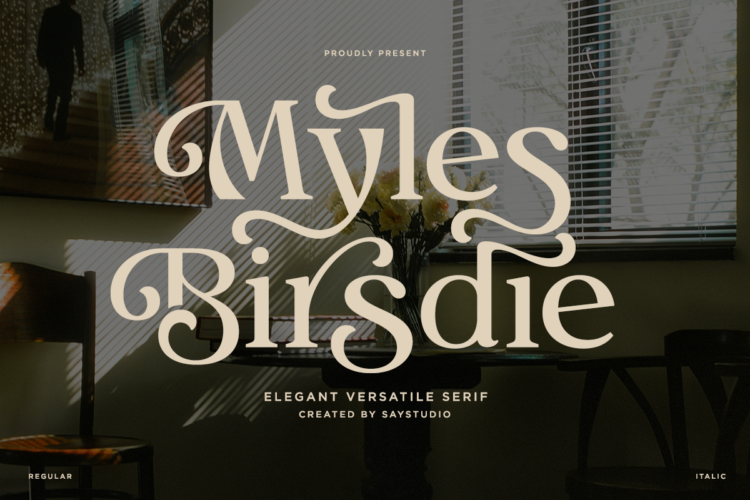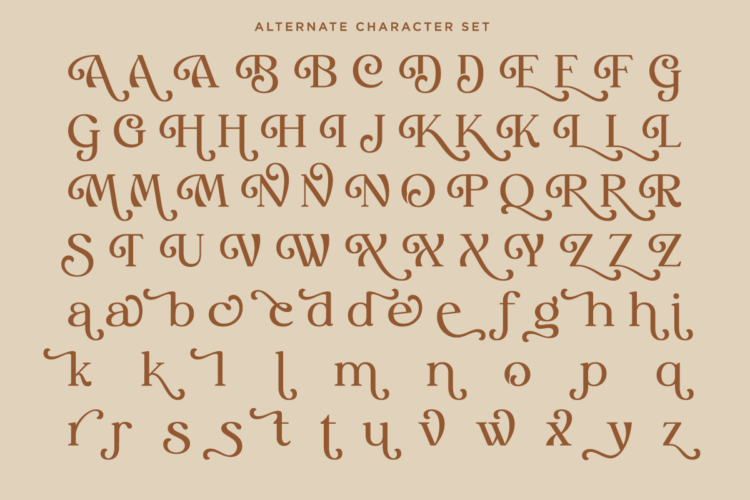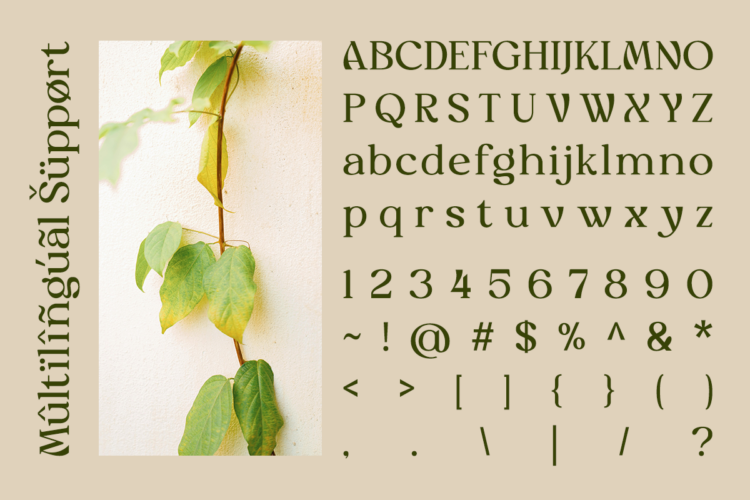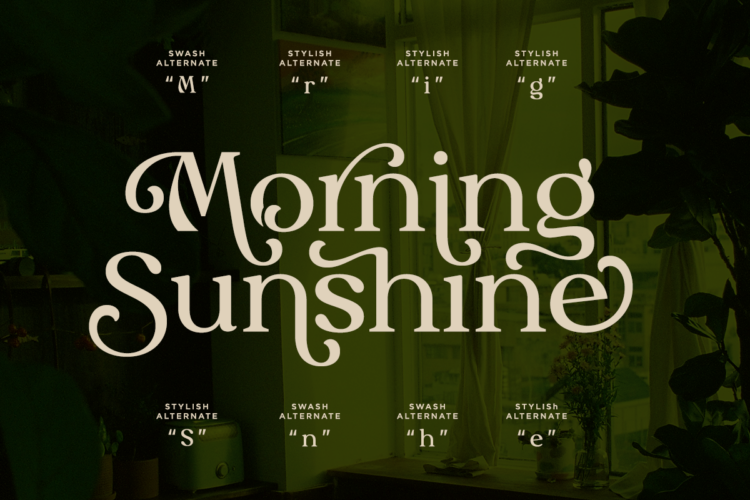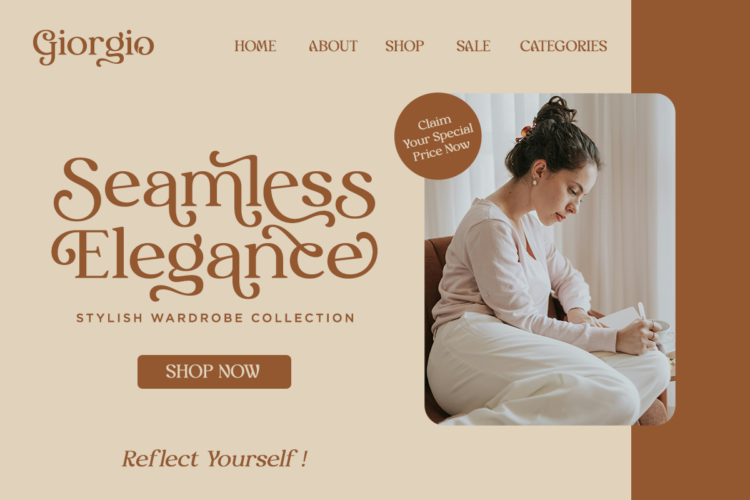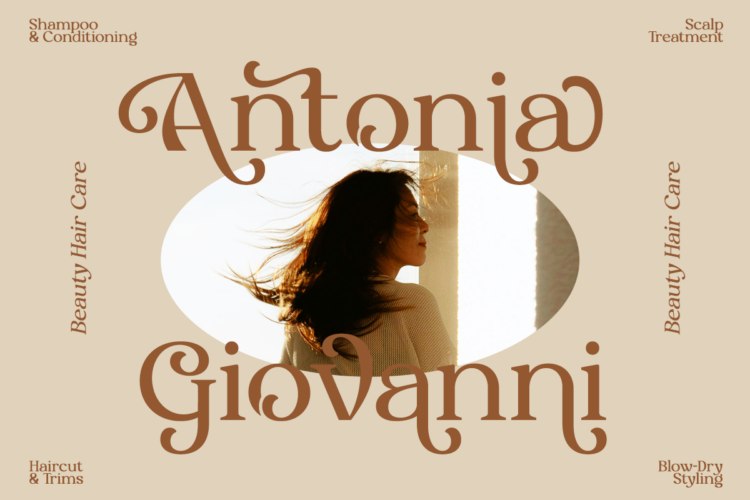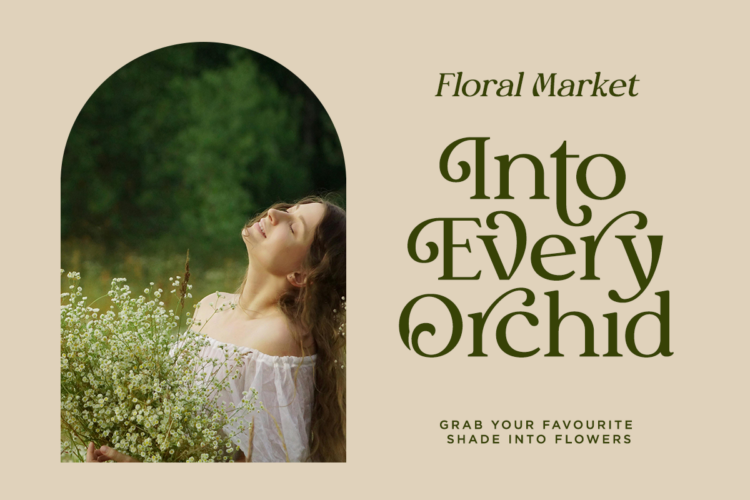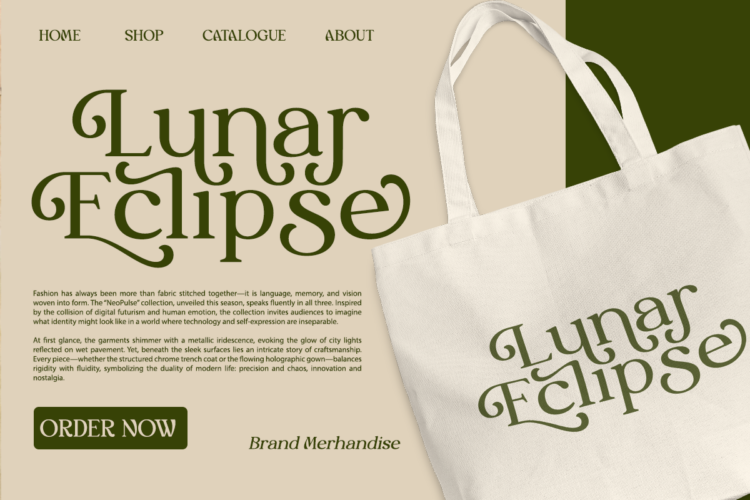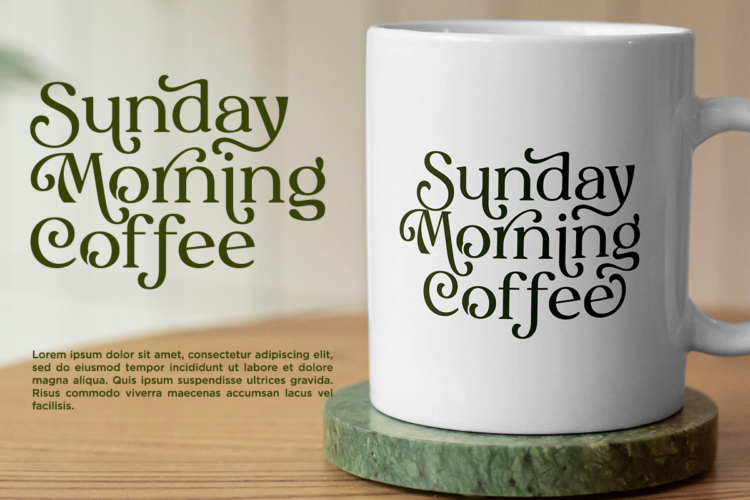
Myles Birdsie – Elegant Versatile Serif Font
Myles Birdsie is an elegant versatile serif font that blends timeless sophistication with artistic personality. Featuring graceful curves, stylish alternates, and refined decorative details, this typeface creates a warm and luxurious aesthetic that feels both vintage-inspired and contemporary. Designed to deliver elegance with excellent readability, Myles Birdsie is perfect for designers who want typography that makes a lasting impression.
Created for luxury branding, fashion editorials, beauty products, floral boutiques, cafés, lifestyle brands, wedding stationery, premium packaging, magazines, social media, and high-end business identities, Myles Birdsie offers exceptional flexibility. Complete with multilingual support, OpenType alternates, stylistic characters, numerals, punctuation, and decorative letterforms, it provides everything needed to build memorable visual identities across both print and digital media.
Whether you’re designing elegant logos, product packaging, cosmetic labels, invitation cards, editorial layouts, café branding, boutique marketing materials, websites, or premium advertising campaigns, Myles Birdsie delivers a charming and sophisticated character. Its versatile serif style combines classic beauty with modern functionality, making it an excellent choice for creative professionals seeking refined typography with timeless appeal.
– Standard Ligature, Uppercase, & Lowercase